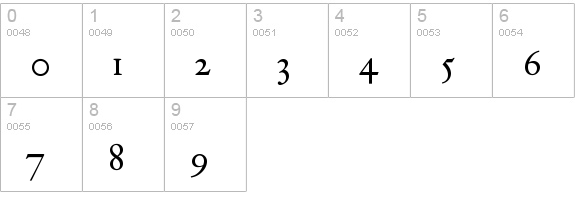
Introducing DTLVandenKeereST, a stunning and elegant serif font designed to elevate your design projects to the next level. This carefully crafted typeface boasts a timeless appeal with its classic serifs and sophisticated letterforms. Perfect for creating impactful headlines, branding materials, and editorial designs, DTLVandenKeereST exudes a sense of refinement and professionalism. What makes DTLVandenKeereST even more enticing is that it is available for free download at FontsMarket.com. Yes, you read that right - this exquisite font can be yours at no cost, allowing you to enhance your creative endeavors without breaking the bank. Whether you're a seasoned designer looking for a new go-to font or a novice exploring typography for the first time, DTLVandenKeereST is a versatile and reliable choice that will surely impress. Don't miss out on the opportunity to add DTLVandenKeereST to your font collection today. Download it for free at FontsMarket.com and let your creativity soar with this exceptional typeface.